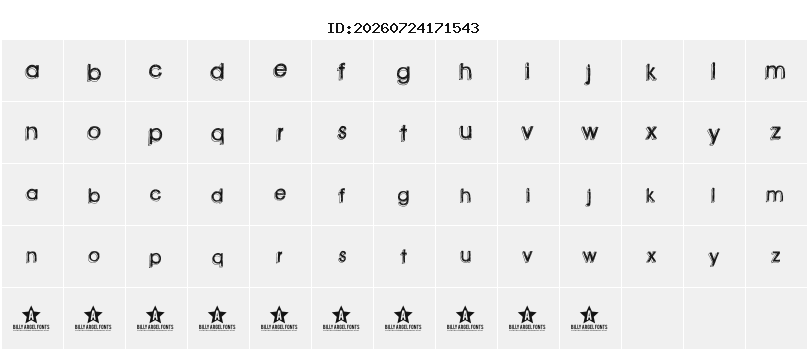
• Font Name: green piloww
green piloww.ttf is a modern, elegant sans-serif font designed for ultimate readability and visual harmony. Perfect for branding, headlines, web design, and print materials.